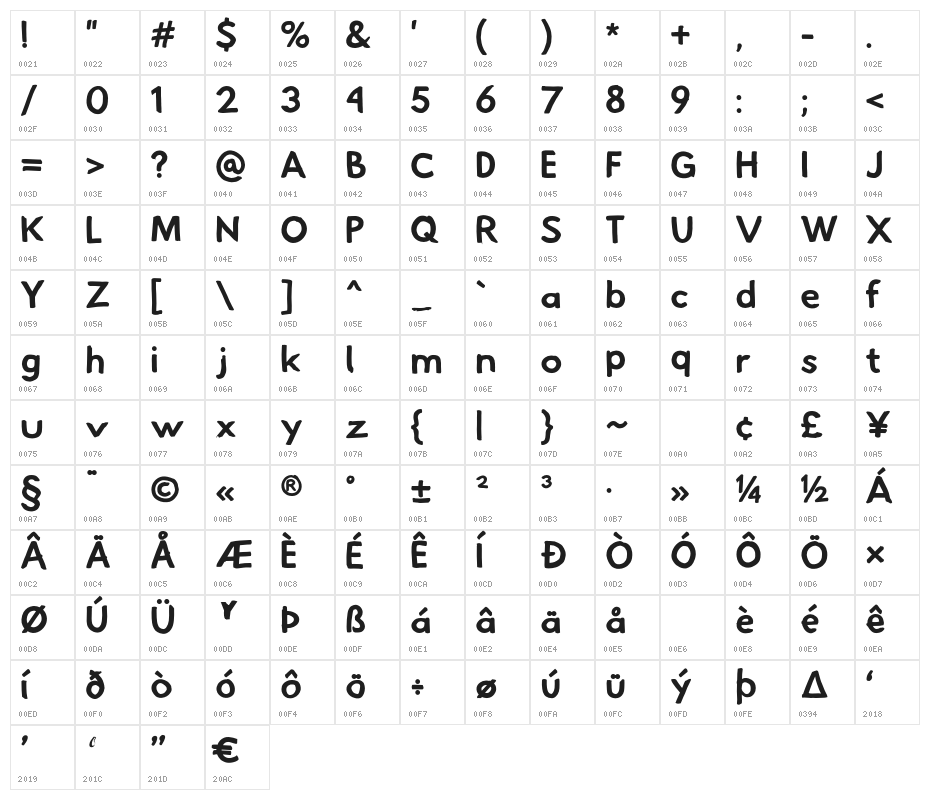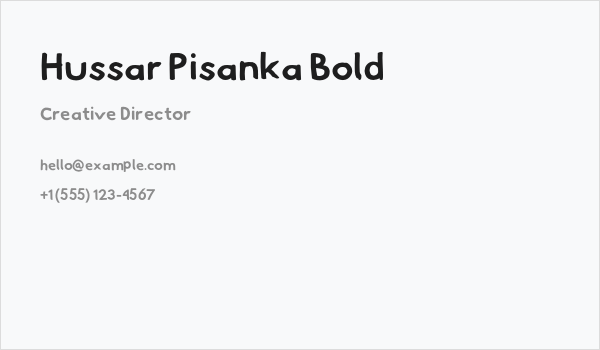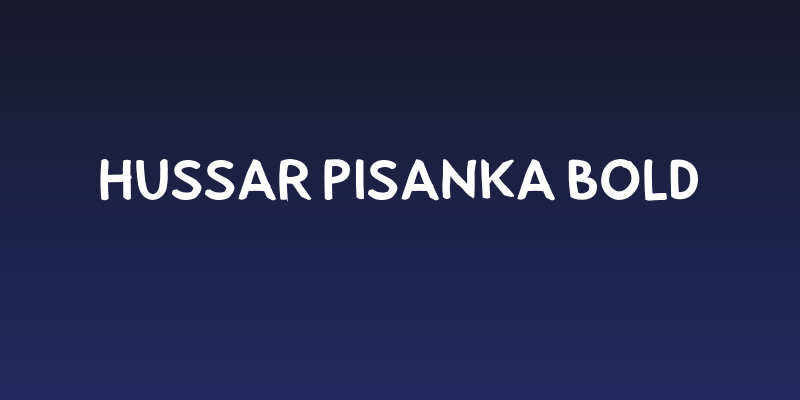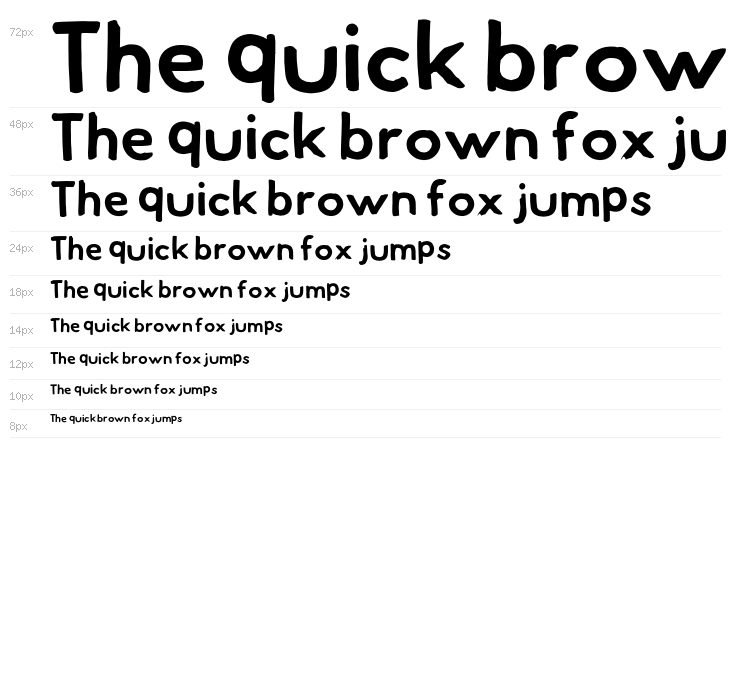
Hussar Pisanka Bold Font
Hussar Pisanka Bold Description
This font exhibits a bold and playful style with rounded edges and a hand-drawn appearance. The characters are slightly irregular, giving it a whimsical and friendly look. The uppercase letters are bold and prominent, while the lowercase letters maintain a consistent flow with a slightly condensed form. Numbers and special characters follow the same playful style, making them easily readable yet distinctive. The overall design is reminiscent of casual handwriting, suitable for projects that require a personal touch.
| Proposed Projects | Ideal for children's books, playful branding, greeting cards, and informal invitations. |